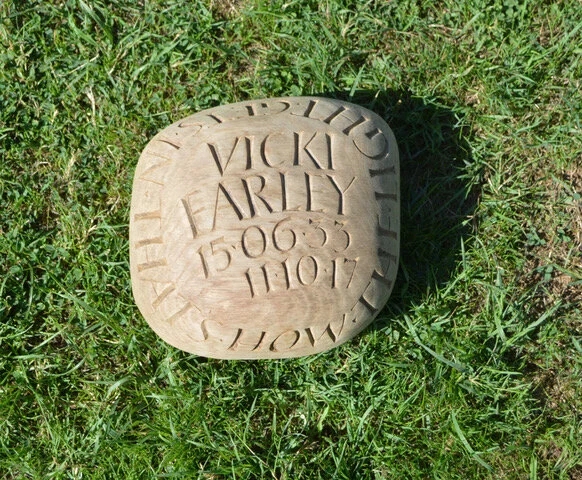
Commemoration for
Green Burials
Many people are choosing a woodland burial rather than a cemetery or graveyard. An eco-burial for a loved one offers the bereaved a feeling of peace and solace.  The closeness of the natural world is comforting and in some way life-affirming.  Green burials are often marked by beautiful, transient memorials made in natural materials that are in keeping with the spirit of the burial
and its tranquil environment.
• the finest makers - these artists are the UK’s most skilled letter carvers in wood and stone
• Individual - create a personal work of art that truly reflects what you are commemorating
• Made by hand - hand-carved lettering has a presence and expressive power that a machine-made memorial can’t match
• Artists chosen by experts - master letter carvers choose the artists with whom we work, selecting only those who demonstrate an originality of design and an advanced understanding of letterforms
• Skills and tradition - these artists are among the very few letter carvers with the skills and training needed to produce the finest, most original work, passed on through generations of craftspeople
• YOUR CHOICE OF DESIGN - from standing stones and sculptures, to wood benches, metal work, sundials and bespoke pieces
Wood pebble carving - Louise Tiplady
Bee carving in tree trunk - Louise Tiplady
Wood carved headstone - Stuart Buckle
Wood carved cross - Stuart Buckle
Wood carved headstone - Stuart Buckle
My job is to make them feel at ease with what they want to do and let them be in control. Then to fine tune their ideas and bring it all together. I’m their hands really.
— Andrew Daish, Artist